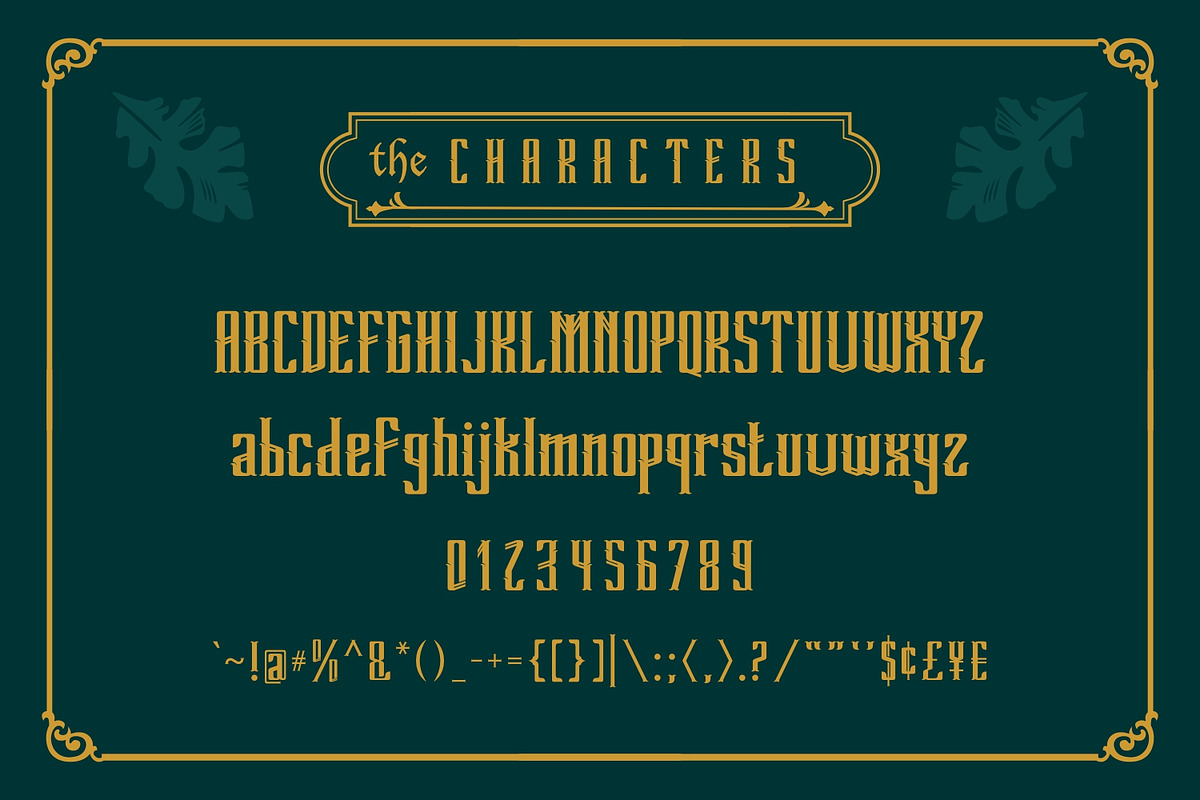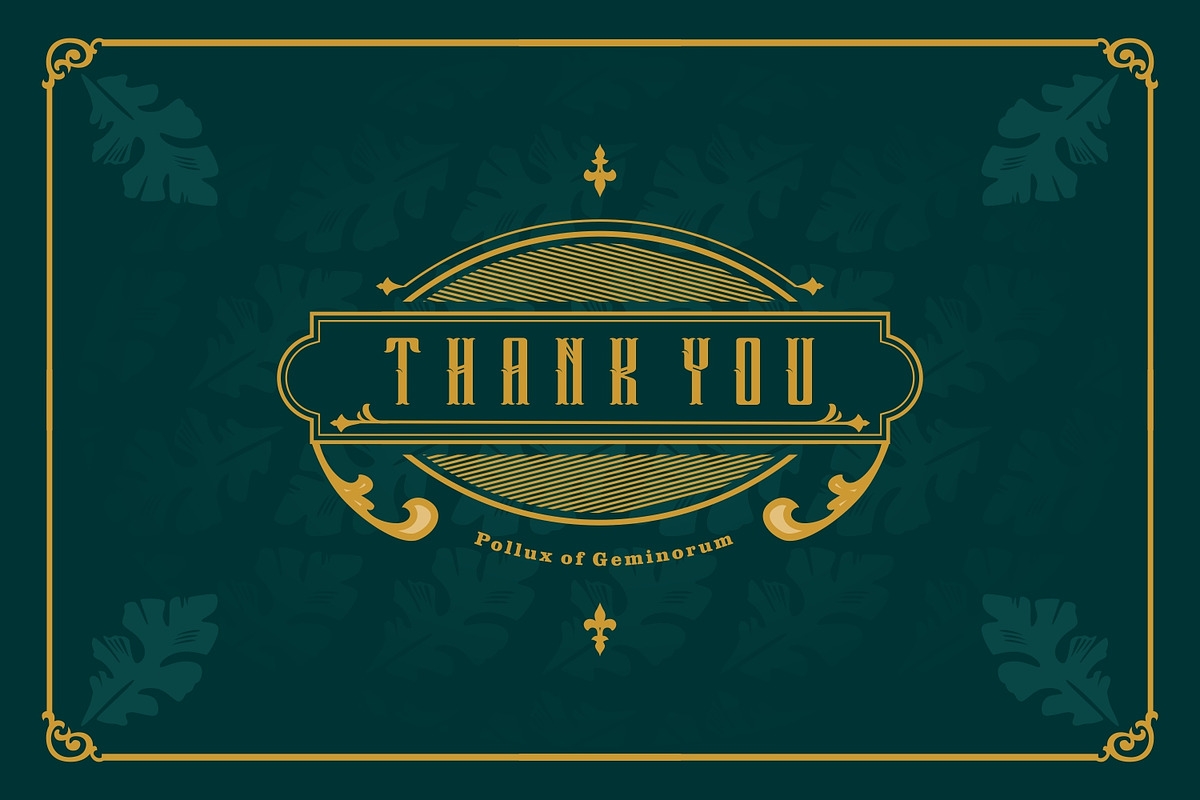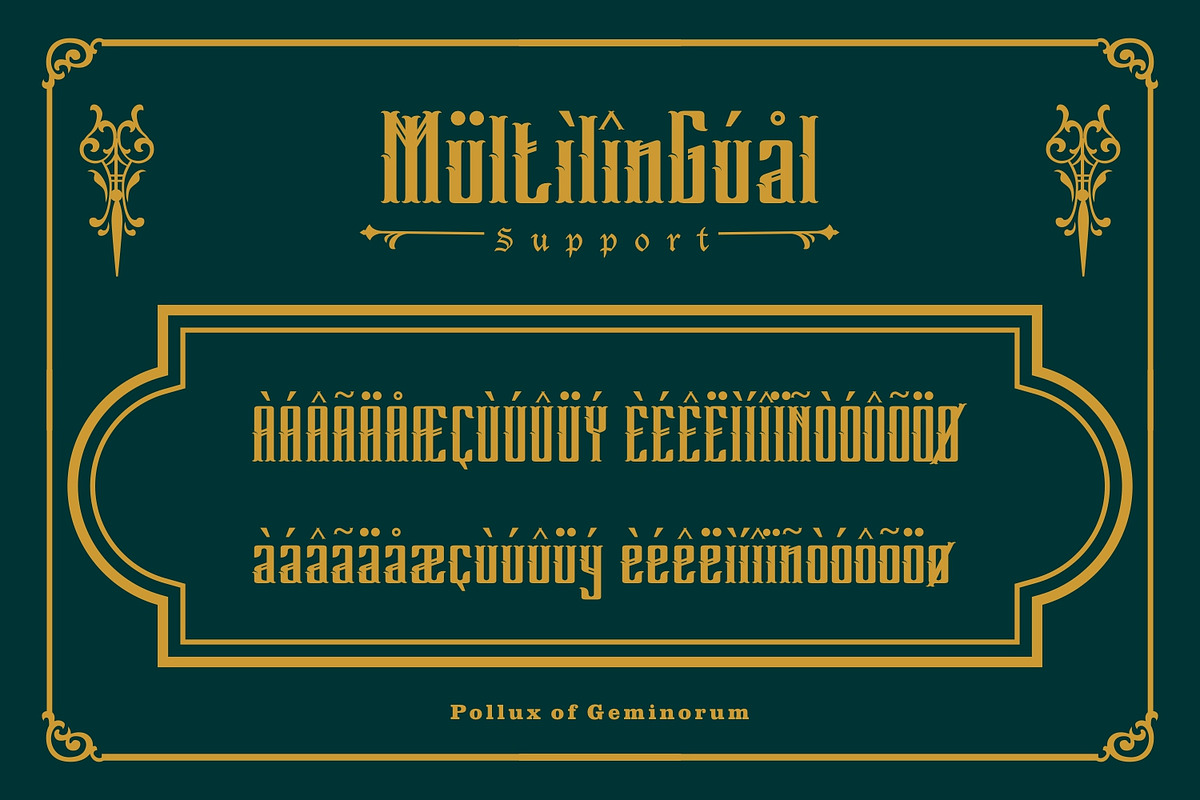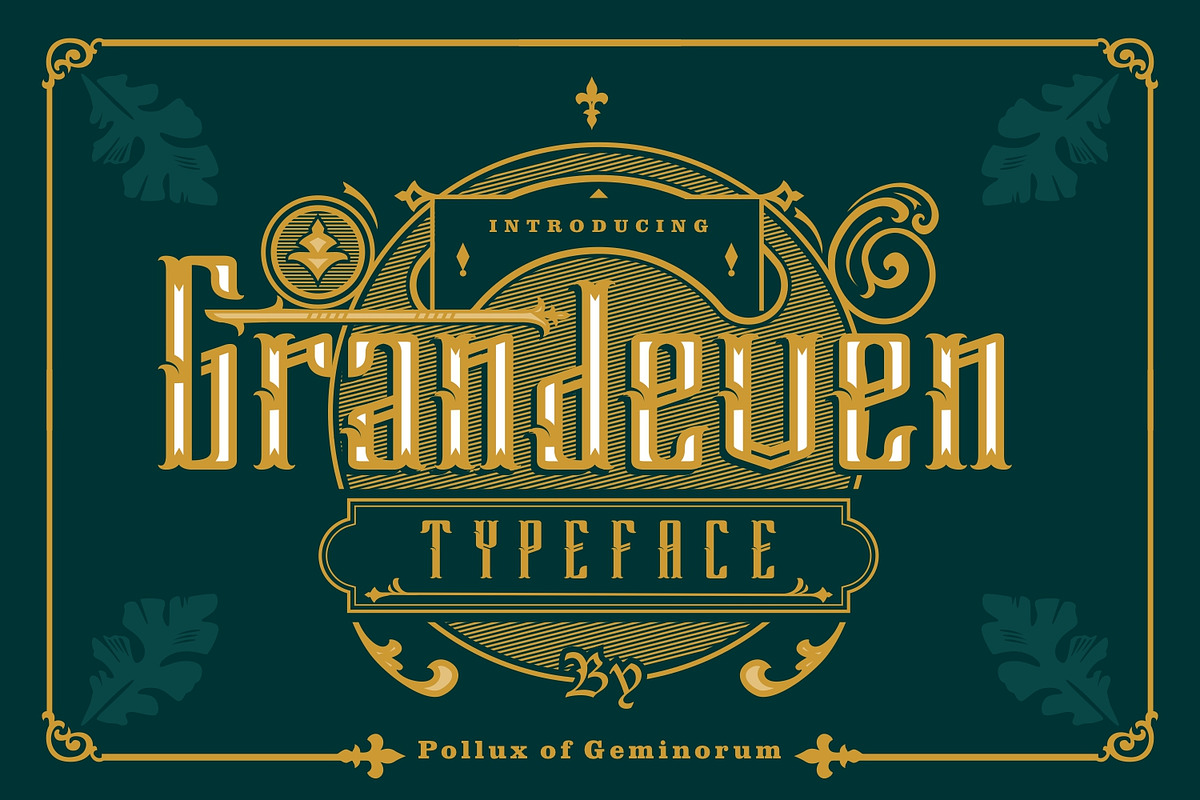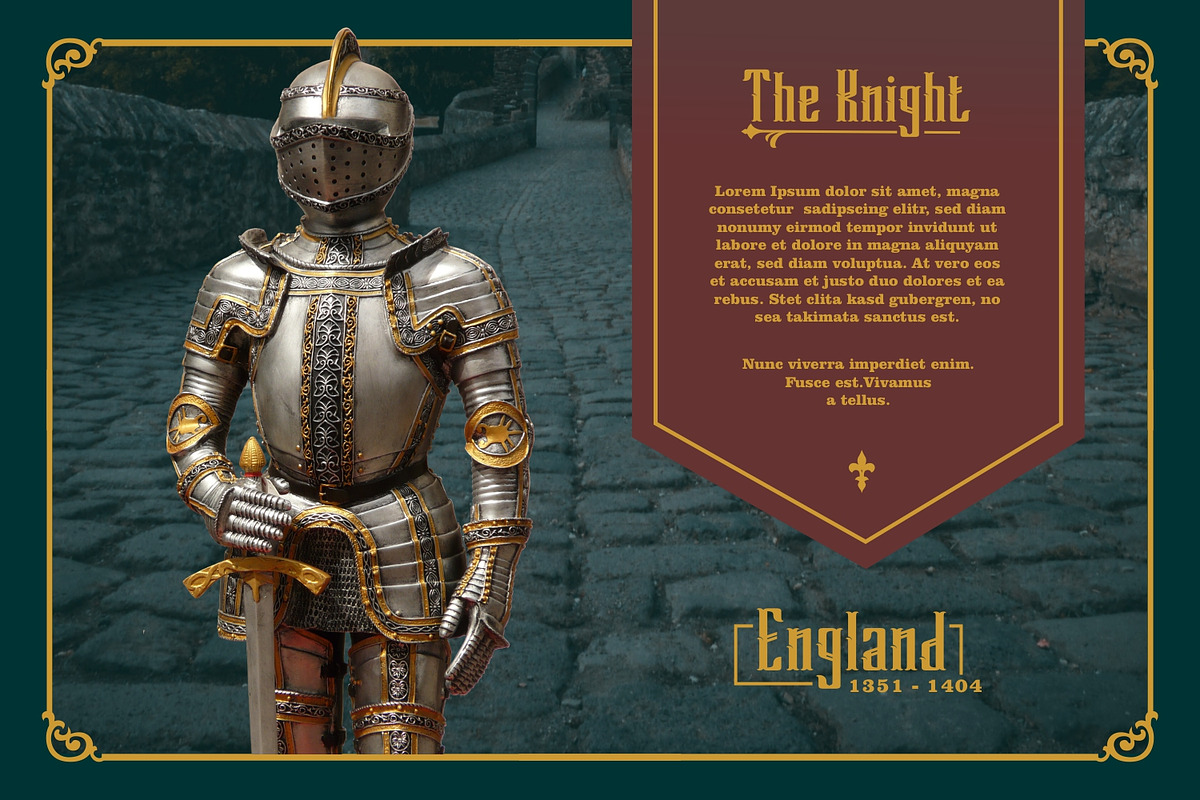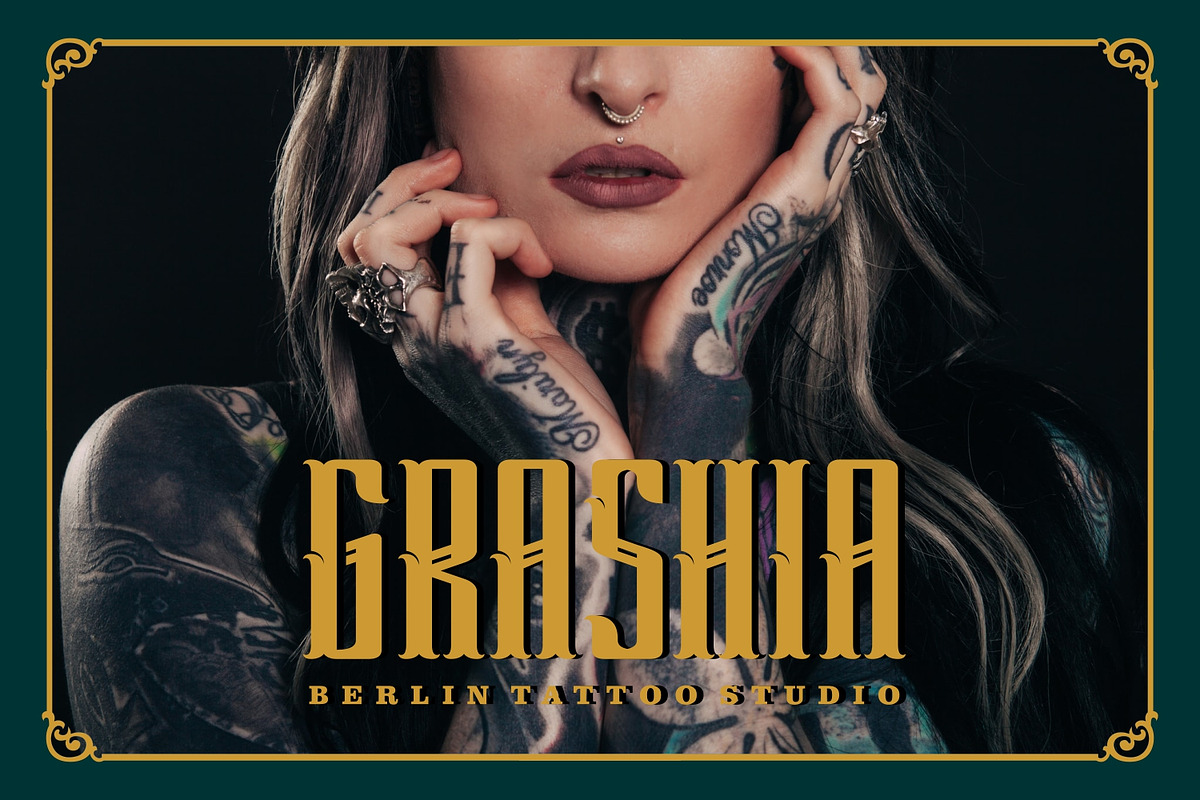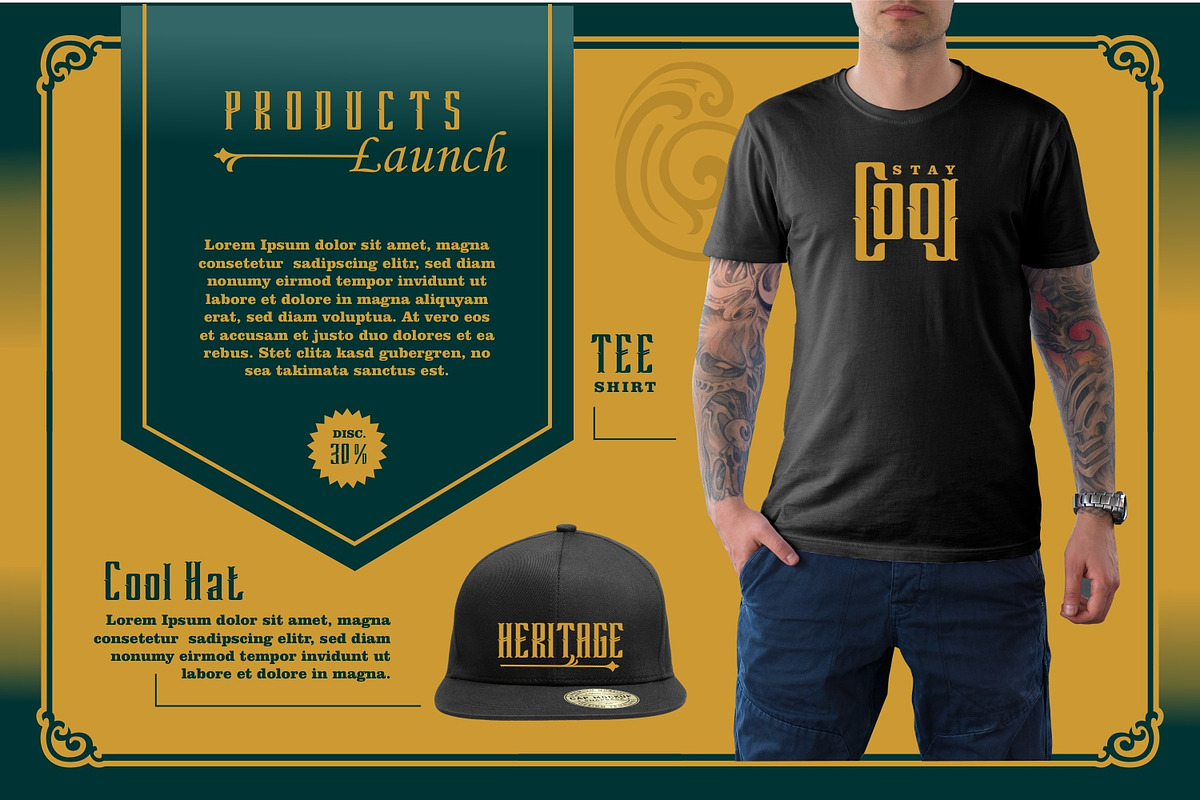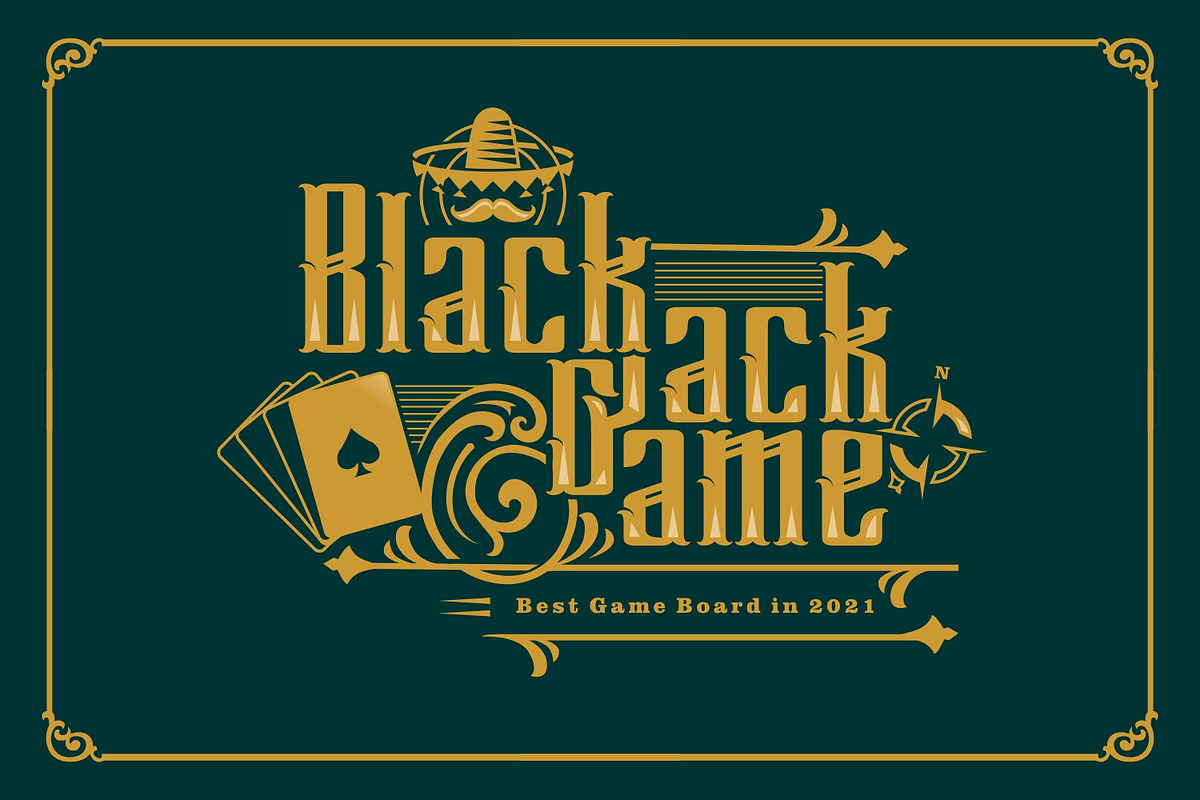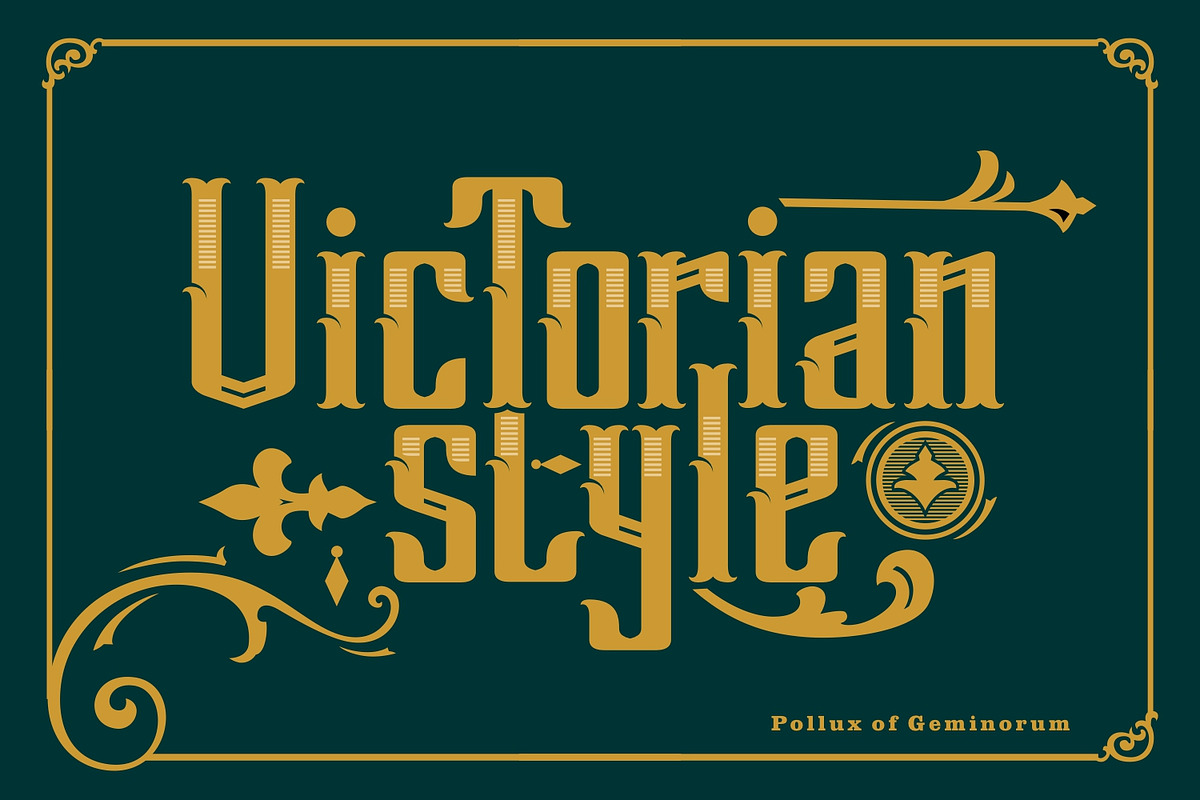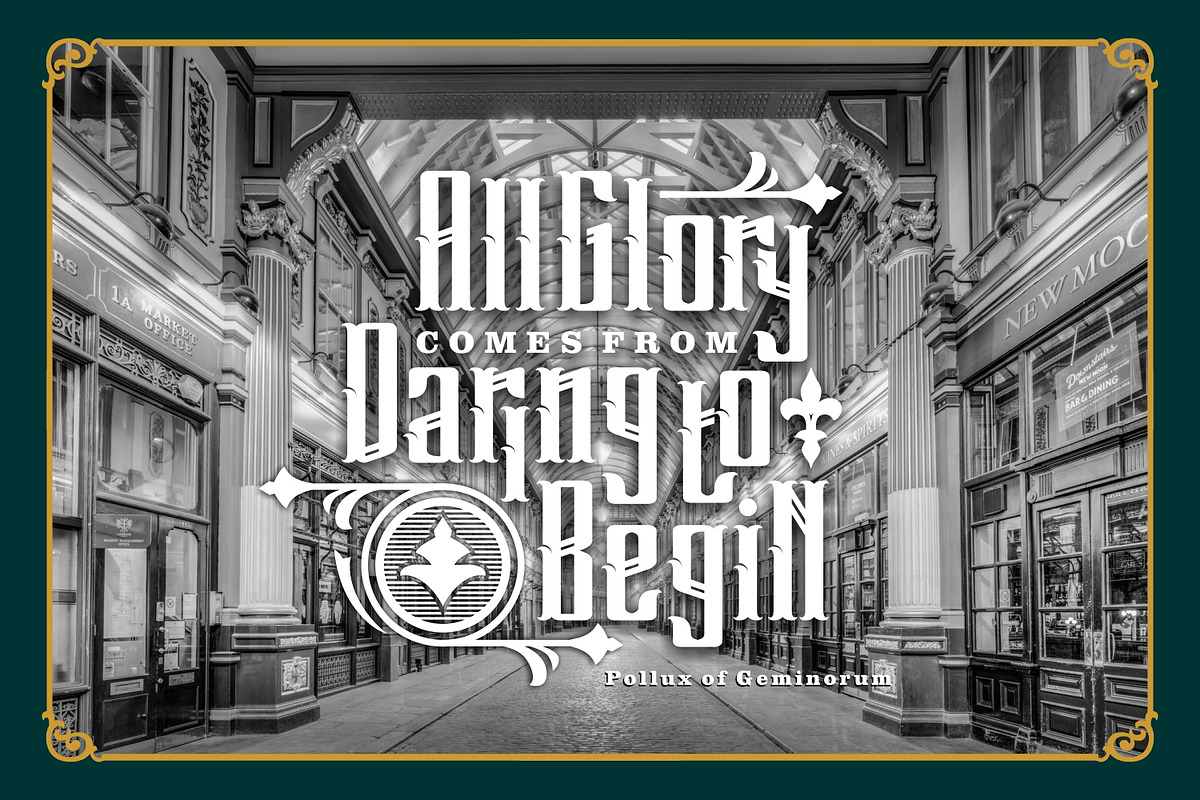
Grandeven
Pollux of Geminorum presents Grandeven Typeface. Uppercase and lowercase with vintage/retro feel. You can mix and match the letters and combine them with borders so that you’ll get a stylish look. This font can be used for various purposes such as headings, logos, invitations, t-shirt designs, greeting cards, posters, labels, book covers, and anything else you can imagine this eye-catching typeface with.